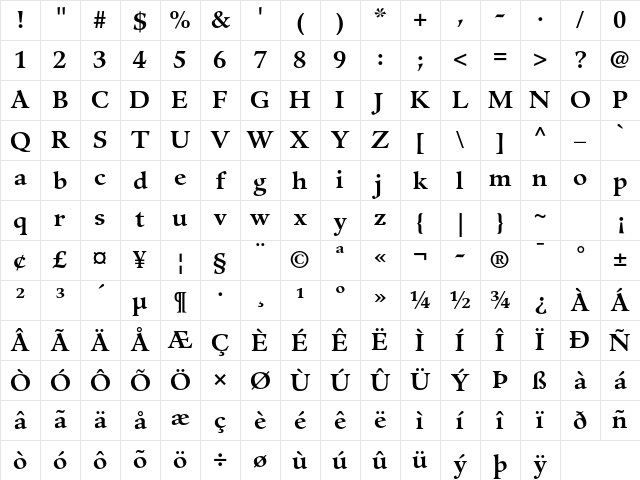
Guardi LT Std 75 Bold
Style: 75 Bold
Designer: Reinhard Haus
Design Context for Guardi LT Std
Guardi LT Std is a composed and adaptable typeface that performs quietly and consistently across a wide range of design contexts. Its bold stroke weight gives it real presence on the page.